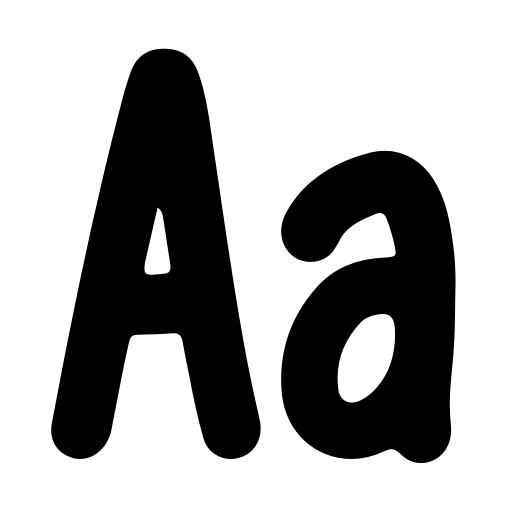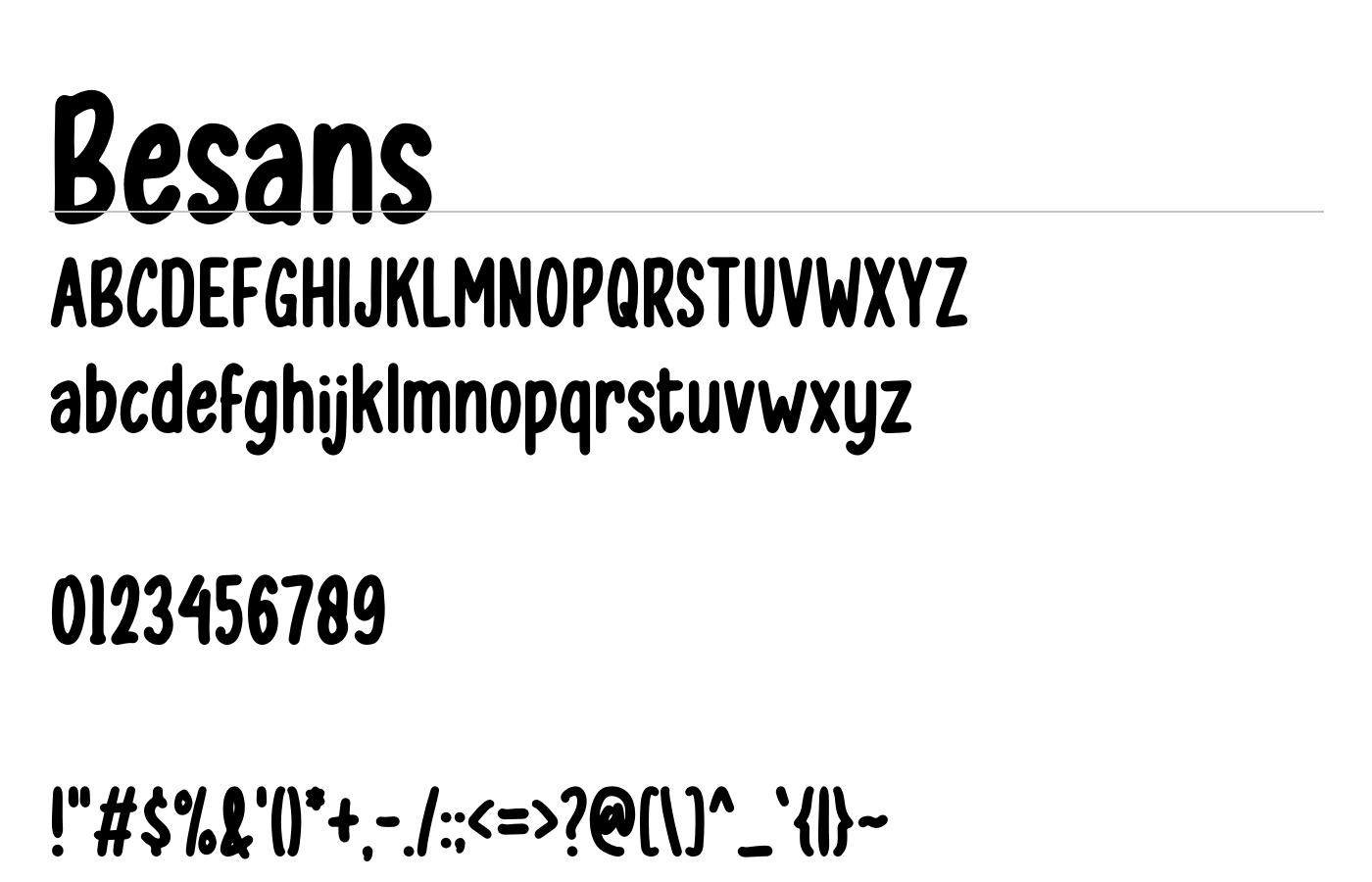
Besans is a playful, hand-drawn sans serif font with rounded edges and a casual, friendly feel. Its slightly irregular letterforms and generous x-height make it highly readable while conveying warmth and approachability, ideal for informal designs like children’s books, fun branding, or creative headlines. This font works well when you want to add a lively, personable touch without sacrificing clarity.
Besans Font
About Besans Font